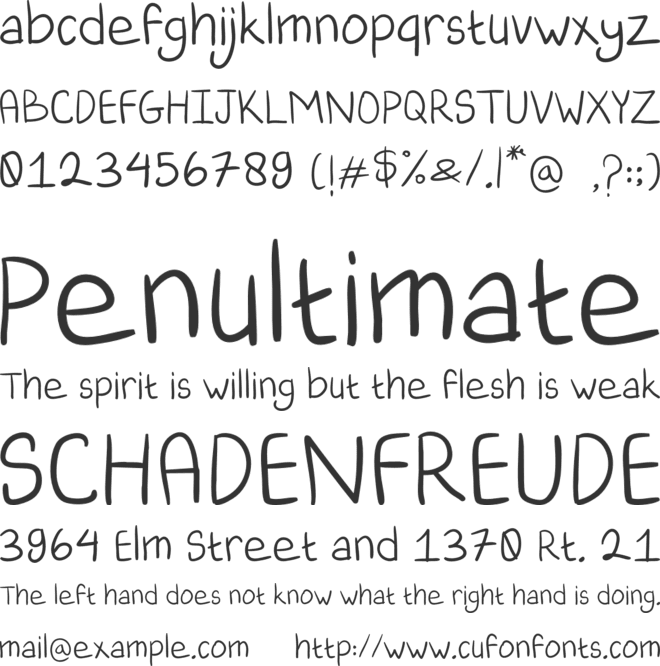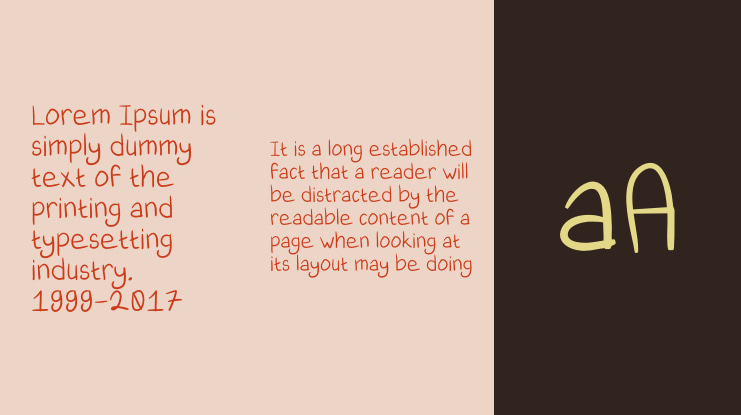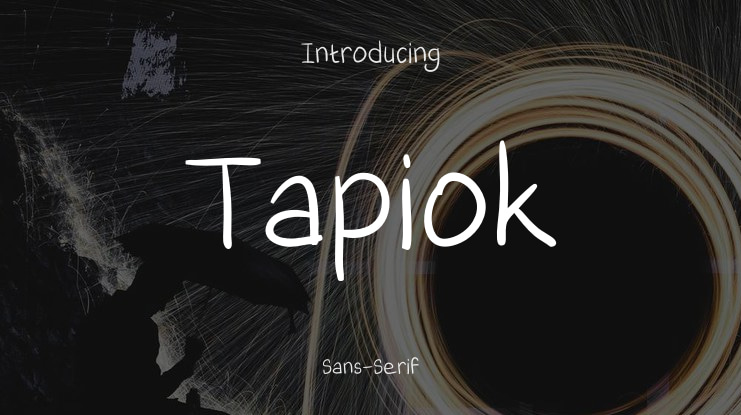
Tapiok Font Family
Tapiok is a playful and bold typeface inspired by food typography, designed to bring joy, creativity, and impact to your designs. Created out of the need for more expressive fonts in culinary design, it offers both uppercase and lowercase letters, along with numbers and punctuation, in two variants: Regular and Bold. With its vibrant and rounded style, Tapiok is perfect for everything from food-related branding and menus to eye-catching posters and signage, adding a fun, impactful touch to any project. Explore Tapiok and elevate your designs with this versatile font available in OTF format.